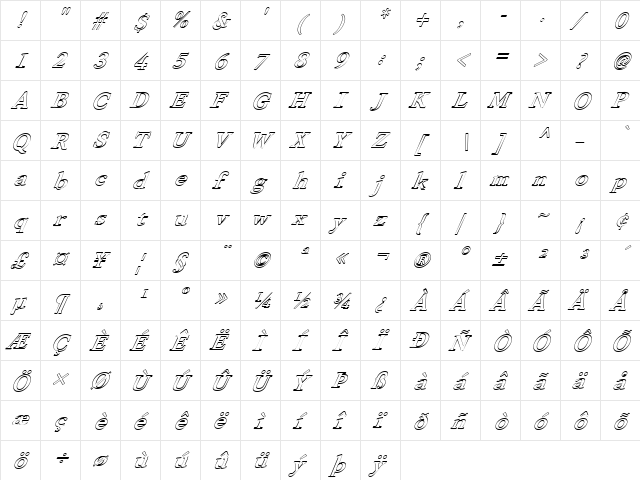
FZ ROMAN 28 HOLLOW ITALIC Normal Font Preview
FZ ROMAN 28 HOLLOW ITALIC Normal
Design Context for FZ ROMAN 28 HOLLOW ITALIC Typeface
FZ ROMAN 28 HOLLOW ITALIC offers clean, dependable letterforms without strong stylistic allegiance, making it a practical choice for designers who need flexibility. The dynamic lean of this cut emphasises speed and emphasis in any layout.
Pro Tip: Try FZ ROMAN 28 HOLLOW ITALIC for annotation and caption copy alongside an upright companion — the contrast in angle creates a dynamic but ordered typographic system.